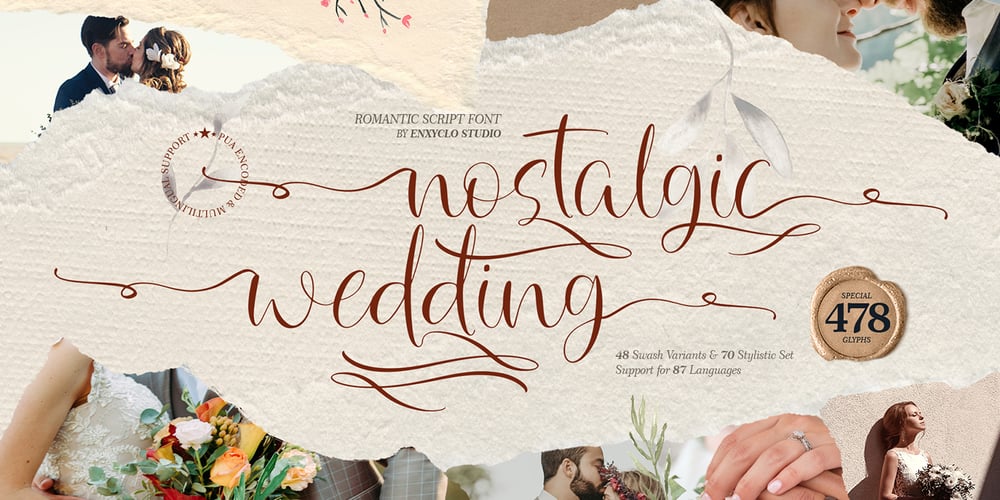
NCL Nostalgic Wedding Font Family was designed by Fahmi Mubarok and published by Enxyclo Studio. NCL Nostalgic Wedding contains 1 styles and family package options. NCL NOSTALGIC WEDDING is romantic wedding script font. It is unique handwritten script font with lots of swash variants. Masterfully designed to become a true favorite, this font has the potential to bring each of your creative ideas to the highest level! It was purposely crafted to be used in large point sizes, although it doesn’t lose its magic in small point sizes. It is perfect for wedding or romantic event, headline, billboard, magazines, website, titles, poster, branding, t-shirt design, and logos. No matter the topic, this font will be an incredible asset to your fonts’ library, as it has the potential to elevate any creation. With this beautiful font, absolutely you can make your project stand out from the rest. See the previews above to get some inspiration on how to use them.FEATURES Contains 478 Glyphs Uppercase, Lowercase & Numeral Punctuation, Symbol & Currencies 70 Stylistic Set 1-4 48 Swash Variants Support for 87 languages: Afrikaans, Albanian, Asu, Basque, Bemba, Bena, Breton, Catalan, Chiga, Colognian, Cornish, Croatian, Czech, Danish, Dutch, Embu, English, Esperanto, Estonian, Filipino, Finnish, French, Friulian, Galician, German, Gusii, Hungarian, Indonesian, Irish, Italian, Kabuverdianu, Kalenjin, Kamba, Kikuyu, Kinyarwanda, Latvian, Lithuanian, Lower Sorbian, Luo Luxembourgish, Luyia, Machame, Makhuwa-Meetto, Makonde, Malagasy, Maltese, Manx, Meru, Morisyen, North Ndebele, Norwegian Bokmål, Norwegian Nynorsk, Nyankole, Oromo, Polish, Portuguese, Quechua, Romansh, Rombo, Rundi, Rwa, Samburu, Sango, Sangu, Scottish Gaelic, Sena, Serbian, Shambala, Shona, Slovak, Soga, Somali, Spanish, Swahili, Swedish, Swiss German, Taita, Teso, Turkish, Upper Sorbian, Uzbek (Latin), Volapük, Vunjo, Walser, Welsh, Western Frisian, Zulu.